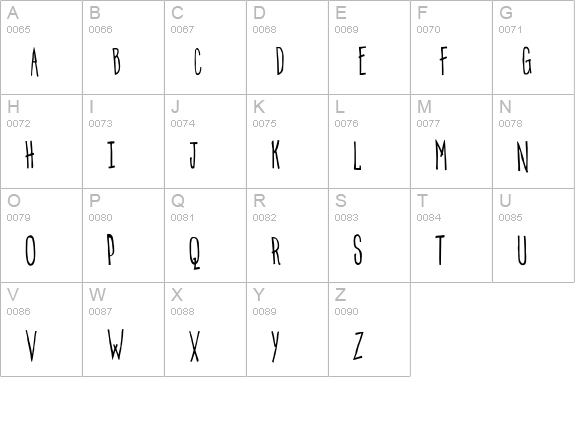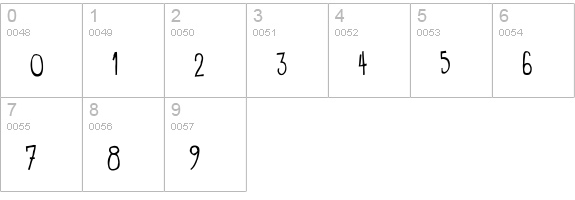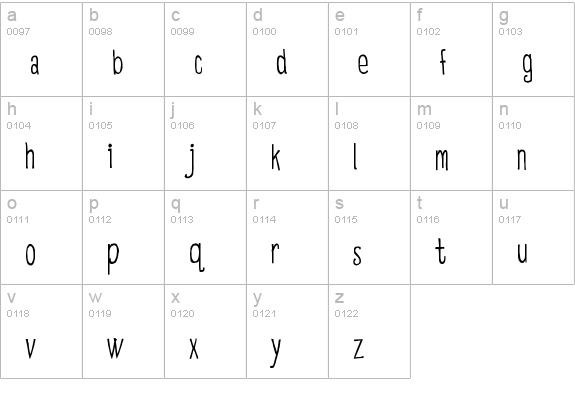
EatpooSkinny Font Details
EatpooSkinny font is a delightful and captivating typeface that effortlessly combines elegance with a touch of playfulness. This unique font is perfect for adding a stylish and contemporary flair to any design project. With its slender and gracefully curved letterforms, EatpooSkinny exudes a sense of sophistication and modernity that is sure to captivate the eye. What makes EatpooSkinny font even more enticing is the fact that it is absolutely free! Yes, you read that right - this incredible font is freely available to download at FontsMarket.com. Whether you're a professional designer or a hobbyist looking to add a touch of creativity to your personal projects, you can now access this remarkable font without any cost. Designed with precision and attention to detail, EatpooSkinny font offers a wide range of versatility, making it suitable for various design applications. From logos and branding materials to website headers and social media graphics, this font will effortlessly elevate your designs to new heights. The clean and crisp lines of EatpooSkinny font ensure legibility, even at smaller sizes, while its intricate details and gentle curves add a touch of elegance and personality. It strikes the perfect balance between modernity and timeless appeal, making it a versatile choice for both print and digital media. So why wait? Don't miss out on the opportunity to add this stunning font to your collection. Download EatpooSkinny font for free at FontsMarket.com and unlock a world of design possibilities. Whether you're creating a professional project or simply indulging your creative instincts, this font will undoubtedly leave a lasting impression. Embrace the beauty and versatility of EatpooSkinny font and watch your designs come to life.